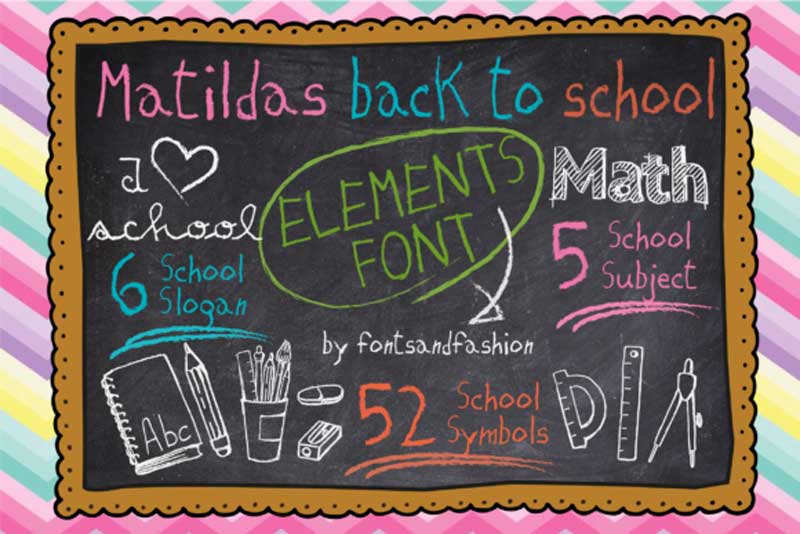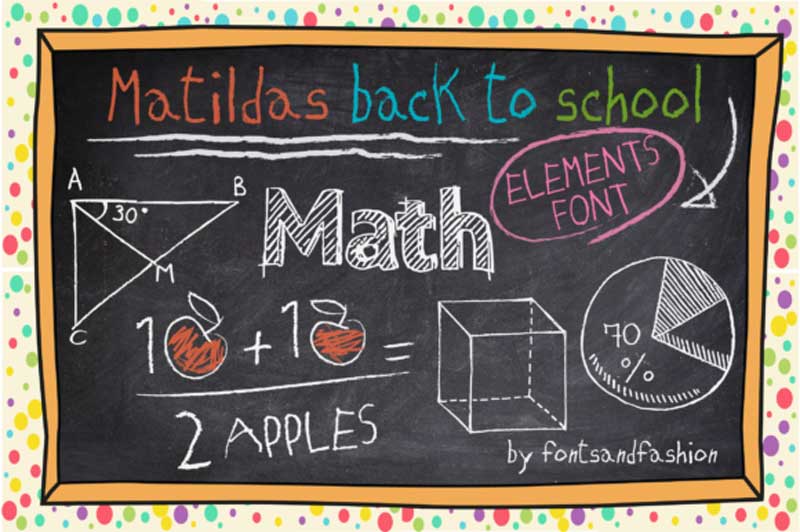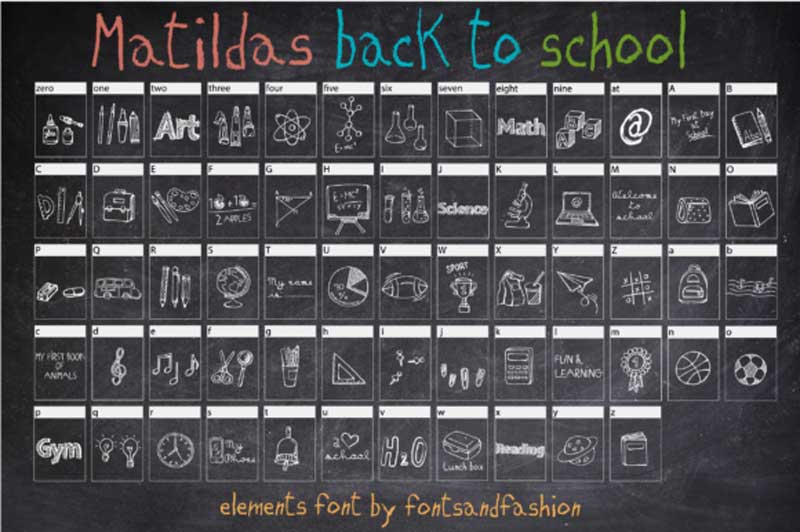
Matildas Back to School Font
Matildas Back to School feature beautiful school elements and symbols. It’s the perfect choice for school-related projects.